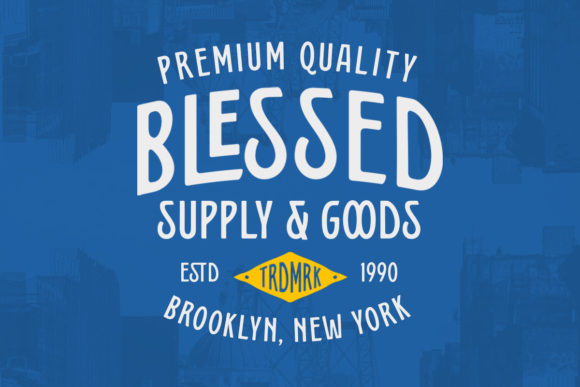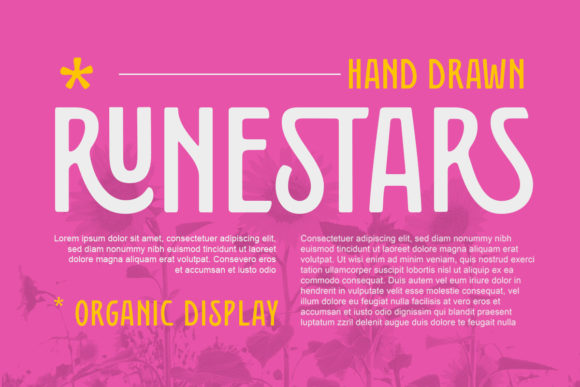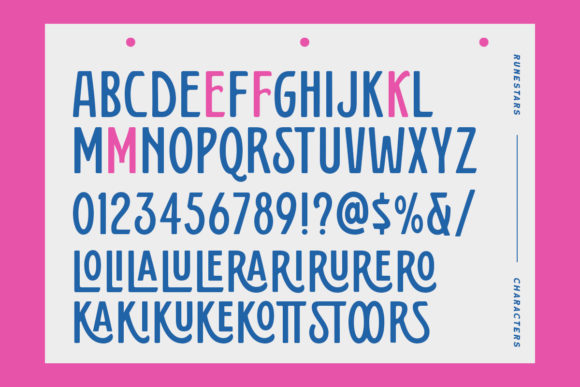
Introduction to Runestars Font
Have you ever been working on a creative project, and that one perfect font just eludes you? You’ve spent hours browsing through design resources, searching for the perfect high-quality display typeface to bring your vision to life. That’s when you stumble upon something truly magical – the Runestars Font. With its unique characters and ligatures, this organic display typeface is the ultimate game-changer for any design project.
Whether you’re a seasoned designer or just starting out, the Runestars Font is an invaluable addition to your design library. Its versatility makes it perfect for a wide range of applications, from logos and invitations to magazines, books, and even packaging. And the best part? You can download it for free, complete with a transparent background, making it easy to integrate into your design.
Key Features of Runestars Font
- High-quality design resource ideal for creative projects, offering a unique and mystical aesthetic.
- Includes a comprehensive set of characters, including uppercase and lowercase letters, numbers, and special characters.
- Perfect for designers and artists looking to add a touch of mysticism and magic to their creative projects.
Honest Review: Runestars Font
I recently had the chance to play around with the Runestars Font, and I have to say it’s a unique addition to my design resource library. The font is perfect for a creative project that requires a touch of mysticism and fantasy.
- High-quality design that looks great on both light and dark backgrounds ✨
- The font is highly customizable, allowing for a wide range of creative possibilities ✨
However, I do have a few concerns:
- Some characters may not be as detailed as others, which can affect overall consistency ⚠️
- The font may not be suitable for all types of projects, particularly those requiring a more straightforward or modern aesthetic ⚠️
Overall, I think the Runestars Font is a great resource for designers looking to add some magic to their creative project. While it may have some limitations, its unique design and high-quality execution make it a valuable addition to any design library.
Tips for Getting the Most Out of Runestars Font
For optimal results, use Runestars Font in conjunction with other design elements to create a visually appealing and high-quality design. Experiment with different font sizes, colors, and combinations to find the perfect look for your creative project.
Runestars Font is ideal for use in fantasy-themed designs, such as game logos, book covers, and character designs. Its unique and mystical design makes it a great addition to any creative project that requires a touch of magic and wonder.